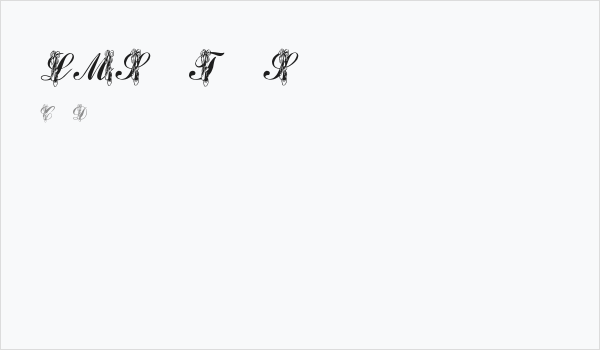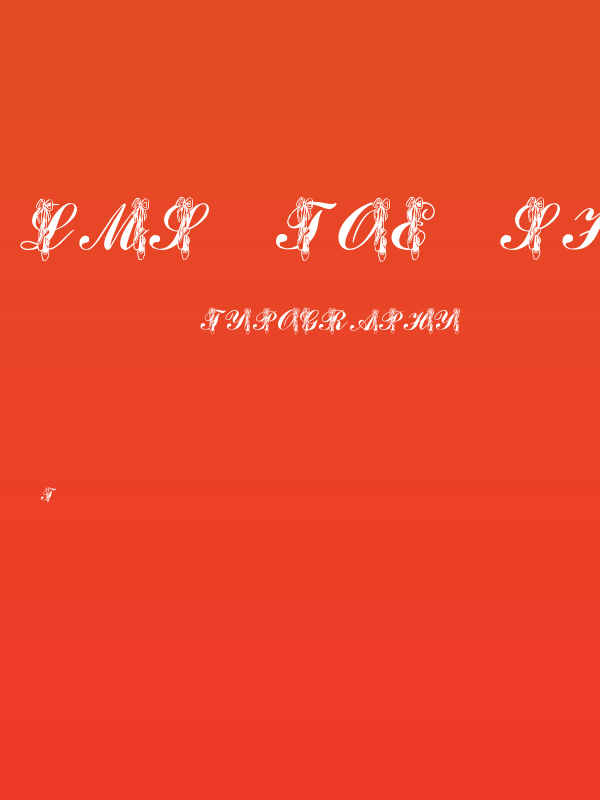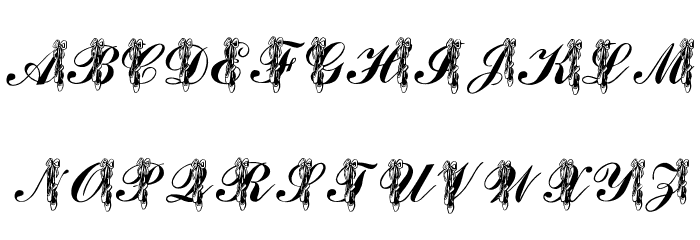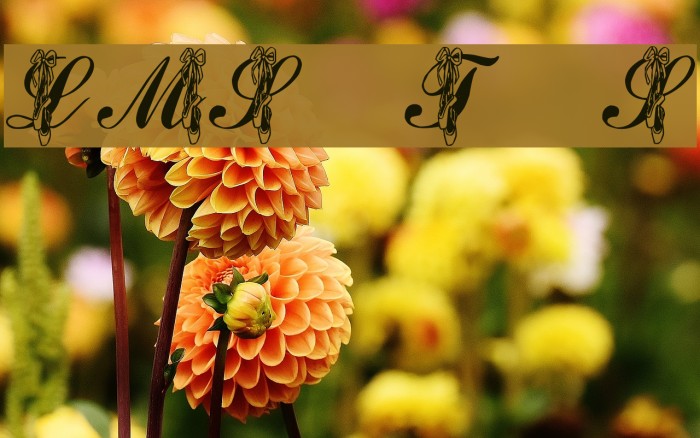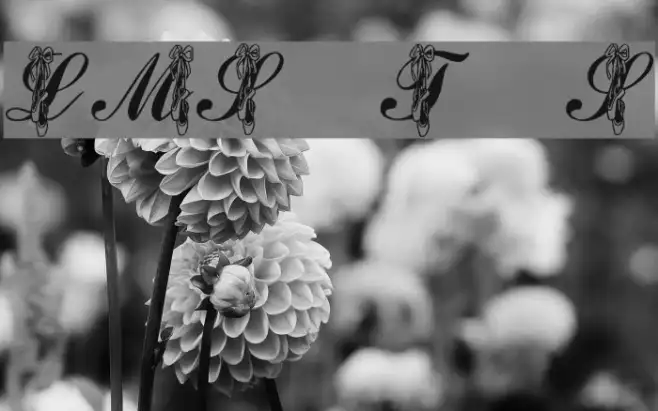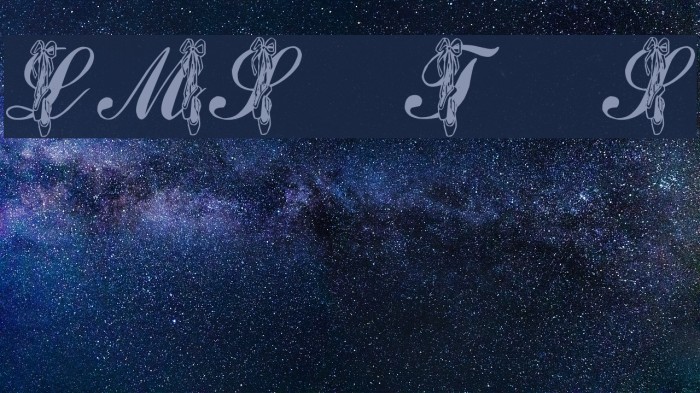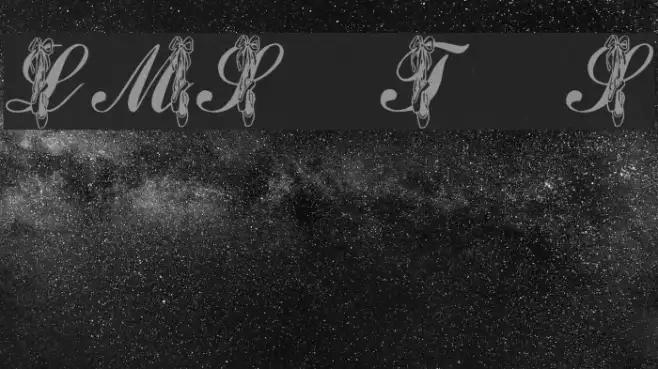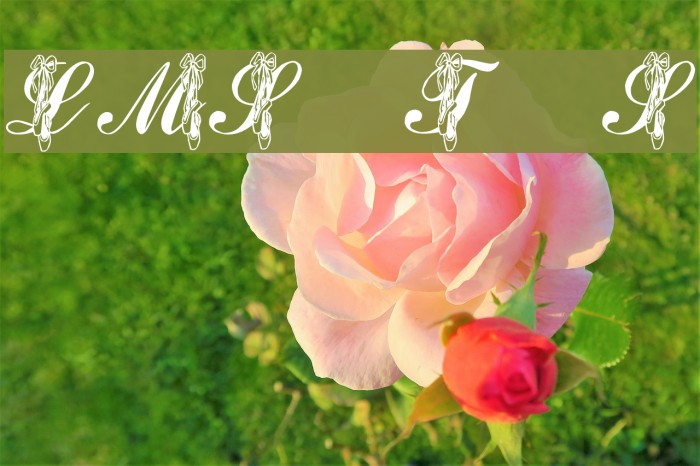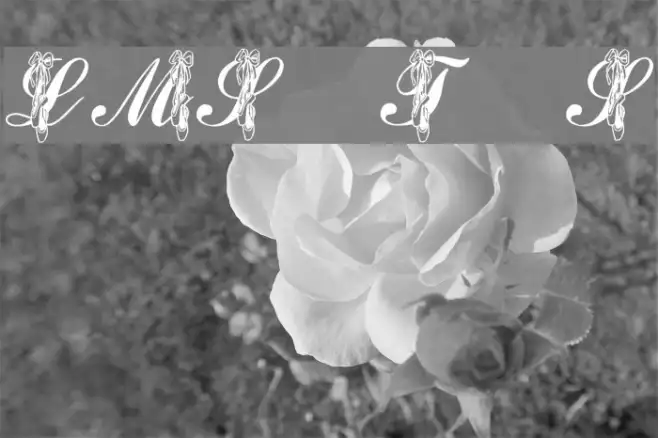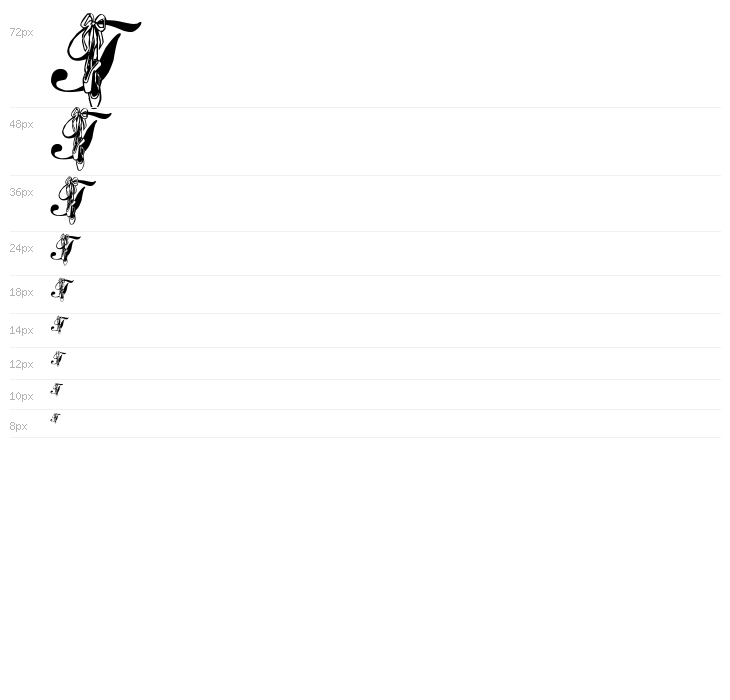
LMS Toe Shoes Font
LMS Toe Shoes Description
This font is an intricate and highly decorative script style, characterized by elaborate swirls and flourishes that extend from each letter. The uppercase letters are particularly ornate, with loops and curls that give a sense of elegance and sophistication. The lowercase letters maintain this decorative theme, though they are slightly less complex, allowing for readability while still maintaining an artistic flair. The numbers and special characters follow the same ornate design, ensuring consistency throughout the typeface. This font is ideal for projects that require a touch of luxury and refinement, such as wedding invitations, high-end branding, or artistic projects.